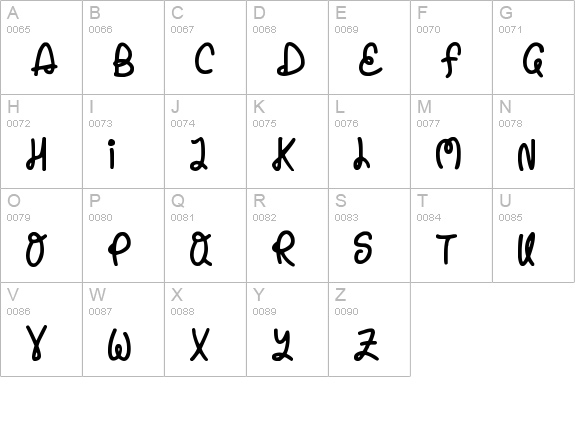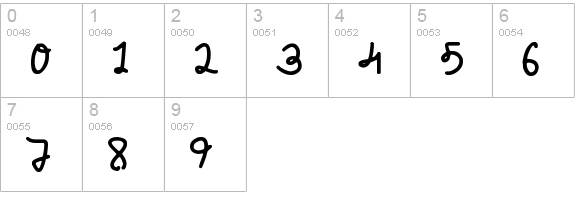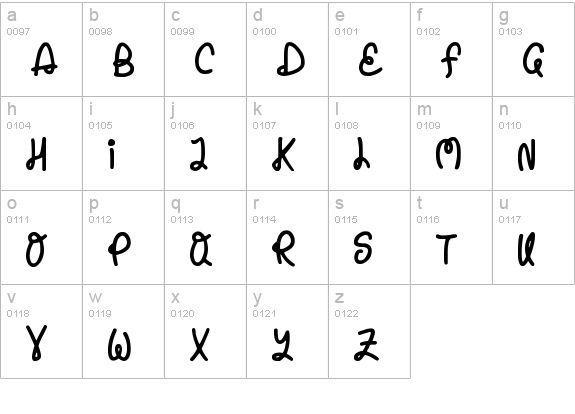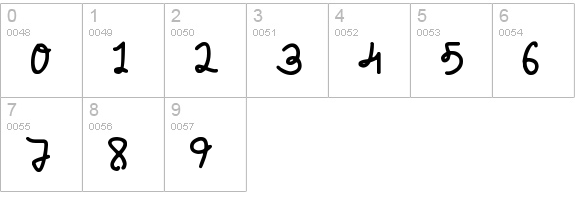
Introducing Penelope New font, a stylish and elegant typeface perfect for adding a touch of sophistication to your design projects. With its sleek lines and modern aesthetic, Penelope New font exudes a sense of luxury and class. This versatile font is ideal for a wide range of applications, from branding and packaging to invitations and social media graphics.